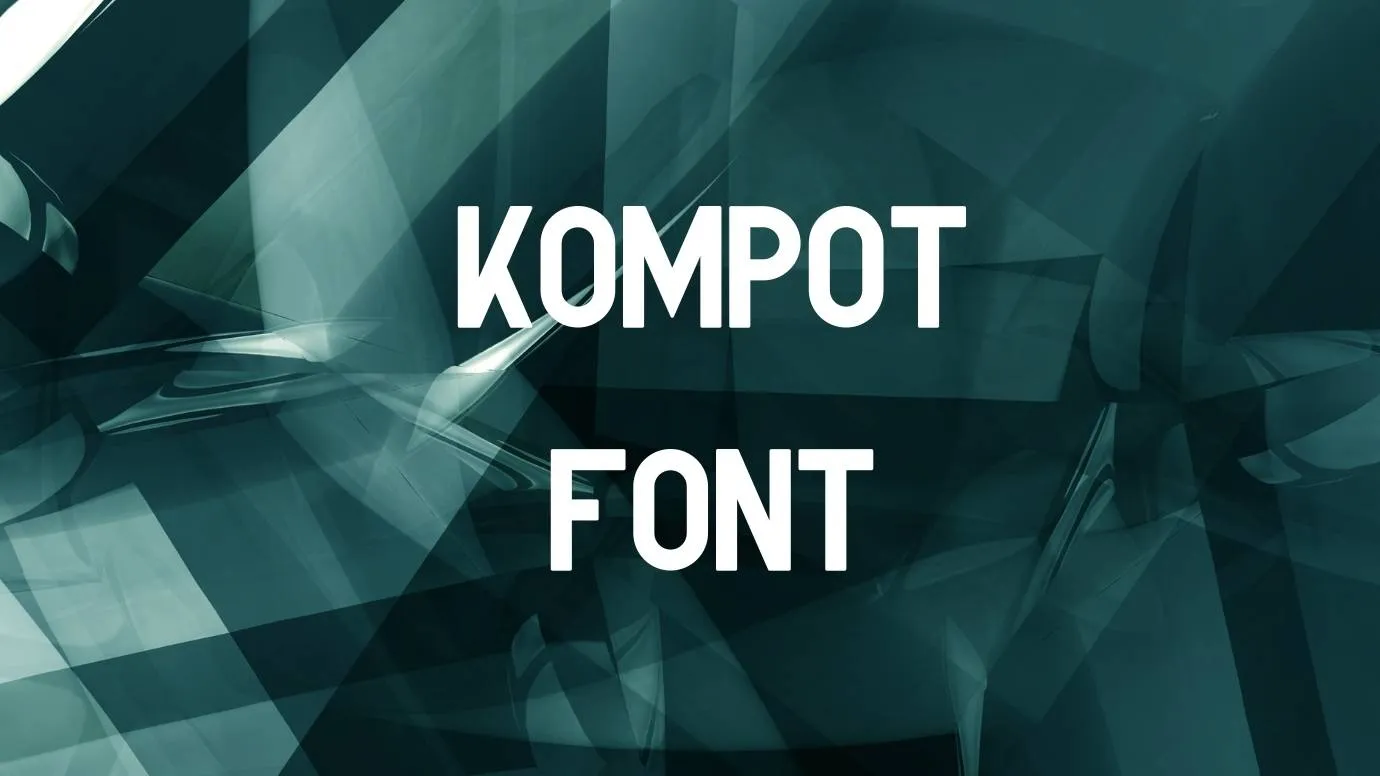
If you’re looking for a unique, modern typeface for your next project, look no further than the Kompot typeface. Kompot Font is a web-based font created by a Bulgarian graphic designer. It was inspired by the geometric shapes of the early 20th century and is perfect for headlines, logos, and other display purposes.
This typeface is similar to the sunday font. This typeface has three weights (light, regular, and bold) and two styles (regular and italic).
This typeface also has a complete set of characters including upper and lower case alphabets, numbers, and special characters. It also includes support for Cyrillic and Latin characters.
Designer of Kompot Font
This attractive and interesting typeface is designed by a Bulgarian typeface designer Vladimir Fedotrov in 2020 for the foundry VP Creative Shop. He also designed many attractive typefaces.
This font style is created with a unique and consistent style. This single attractive style is a combination of various characteristics, including capital alphabets and small alphabets, punctuations, glyphs, numbers, special characters, symbols, and a large number of language support.
| Designer | Vladimir Fedotov |
| Foundry | VP Creative Shop |
Yes, this typeface is a good website font. It’s unique, modern, and perfect for headlines, logos, and other display purposes.